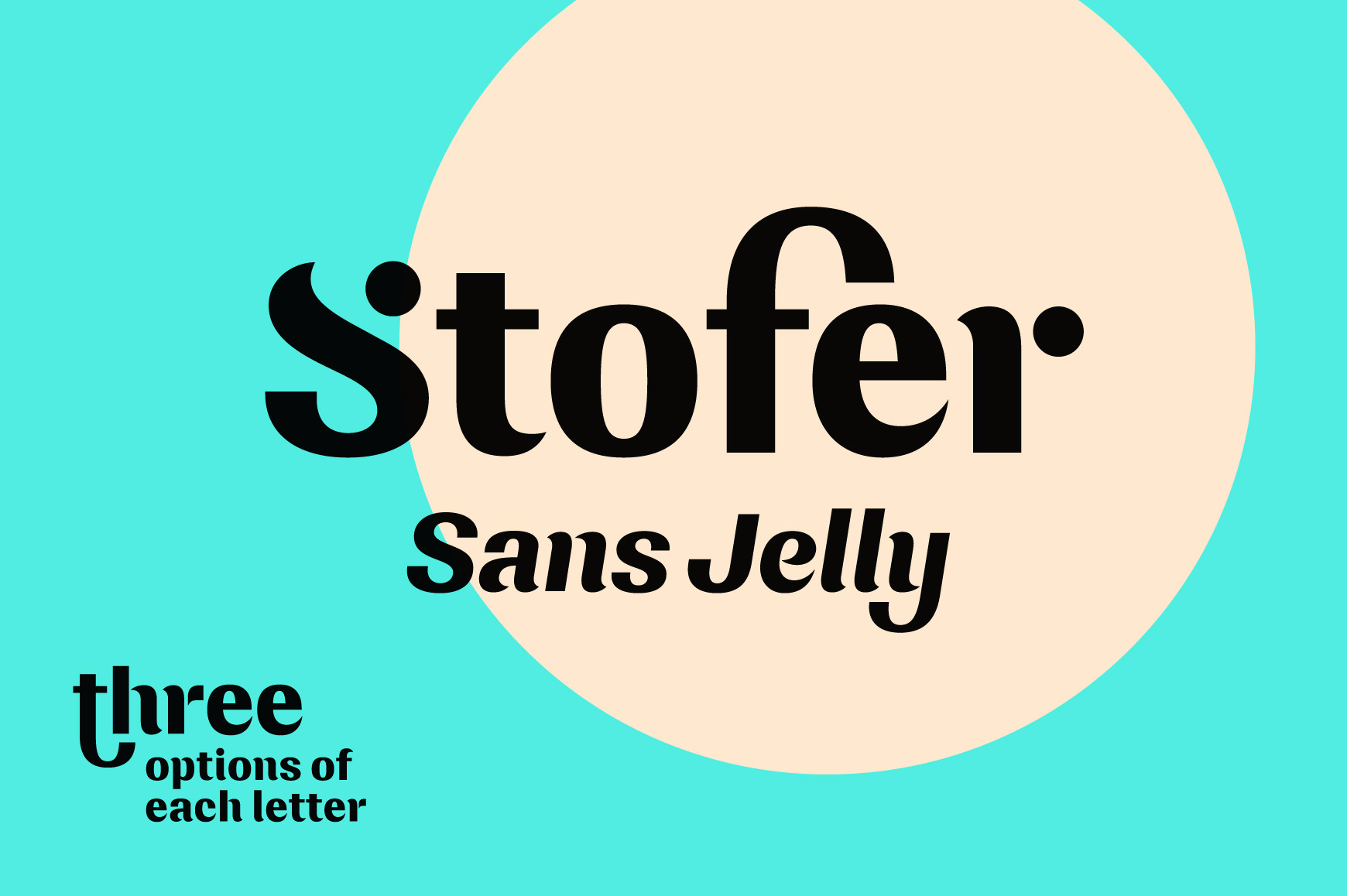
Stofer Font
Stofer is a font family for design of minimalistic logos. The fonts are suitable for creating wordmarks, titles, taglines. Use alternative characters to emphasize separate letters in your text.
The font contains:
- 3 options of Latin letters
- 3 options of multilingual letters
- numbers
- extra characters
- punctuation